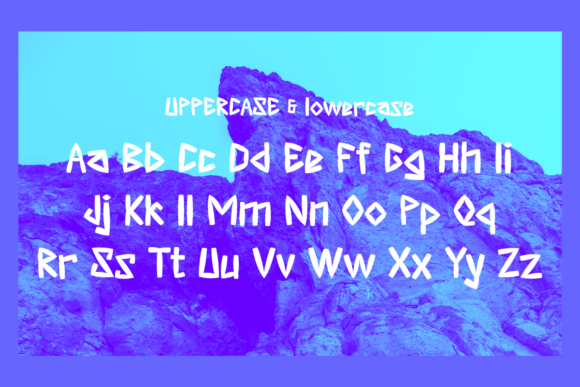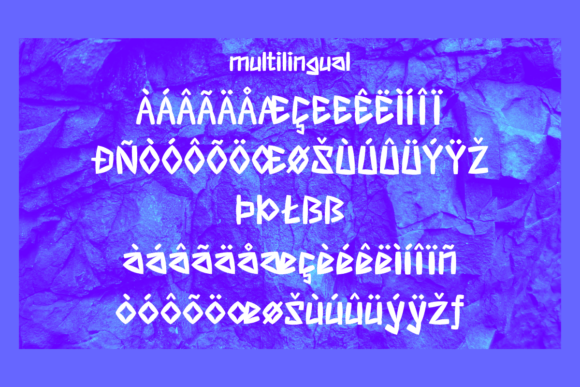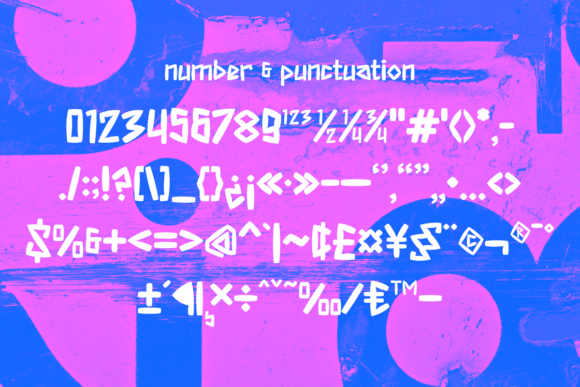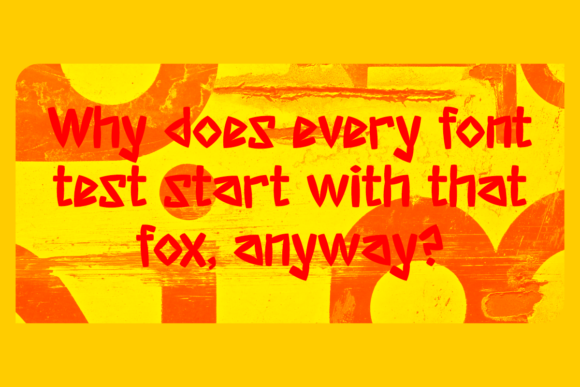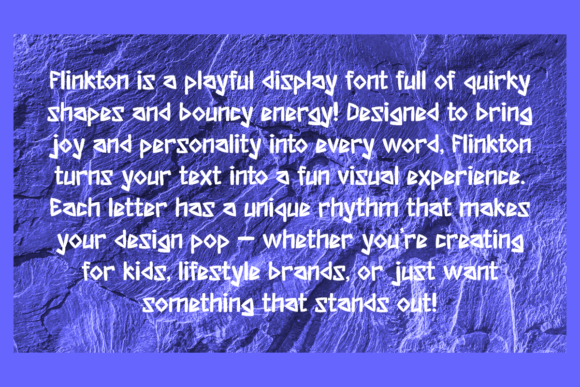
Introduction to Flinkton Font
Have you ever stumbled upon a font that instantly makes your design project feel more vibrant and fun? For me, that font is Flinkton Font. I was working on a children’s book illustration and I needed a font that could capture the playful spirit of my characters. That’s when I discovered Flinkton Font – a delightful display font that’s full of quirky shapes and bouncy energy.
As a designer, I can attest that finding the right font can make all the difference in a project. Flinkton Font is not just another font in your collection – it’s a valuable design resource that can bring a smile to your audience’s face. Its unique rhythm and hand-crafted vibe make it perfect for creating attention-grabbing designs that stand out from the crowd.
Whether you’re working on a free download project or a high-quality commercial campaign, Flinkton Font is an excellent choice. Its transparent background and modern geometric forms make it a versatile design tool that can be used for a wide range of creative projects.
Key Features of Flinkton Font
- High-quality design: Flinkton Font is a meticulously crafted typeface perfect for creative projects, offering a unique blend of style and sophistication.
- Transparent background: This versatile font features a transparent background, making it ideal for use on images or backgrounds with complex textures.
- High-resolution design: With a resolution of 300 DPI, Flinkton Font is suitable for use in both print and digital designs, including logos, posters, and business cards.
- Unique characteristics: The font’s distinctive style and flair make it an excellent choice for designers looking to add a touch of personality to their creative projects.
- Perfect for creative projects: Flinkton Font is an excellent choice for designers working on creative projects, including branding, advertising, and editorial designs.
Honest Review: Flinkton Font
I recently had the chance to work with the Flinkton Font, and I must say, it’s been a game-changer for my creative projects. As a designer, I’m always on the lookout for high-quality design resources that can help me elevate my work.
The Flinkton Font is a beautifully crafted font that’s perfect for any project that requires a modern and sleek aesthetic. What works well about this font is its ✨ versatility and ✨ readability, making it easy to use in a variety of creative contexts. I particularly love the ✨ transparent background option, which allows for seamless integration with my design elements.
Here are some of the key features that I appreciate about the Flinkton Font:
- High-quality design with a modern aesthetic
- Perfect for creative projects that require a sleek and modern look
One limitation I’ve encountered is that the font can be a bit ✠️ heavy-handed at times, making it difficult to use in smaller font sizes. However, this is a minor complaint, and the benefits of using the Flinkton Font far outweigh the drawbacks.
Overall, I’m thoroughly impressed with the Flinkton Font, and I highly recommend it to any designer looking for a high-quality design resource. It’s a valuable addition to any design toolkit, and I’m excited to see what creative projects I can use it for next.
Getting the Most Out of Flinkton Font
To get the most out of the Flinkton Font, experiment with different font sizes, colors, and combinations. The font’s high-quality design makes it versatile and easy to use.
The Flinkton Font is perfect for a variety of creative projects, including logos, business cards, and social media graphics. Its transparent background makes it ideal for creating visually appealing designs with images or backgrounds.